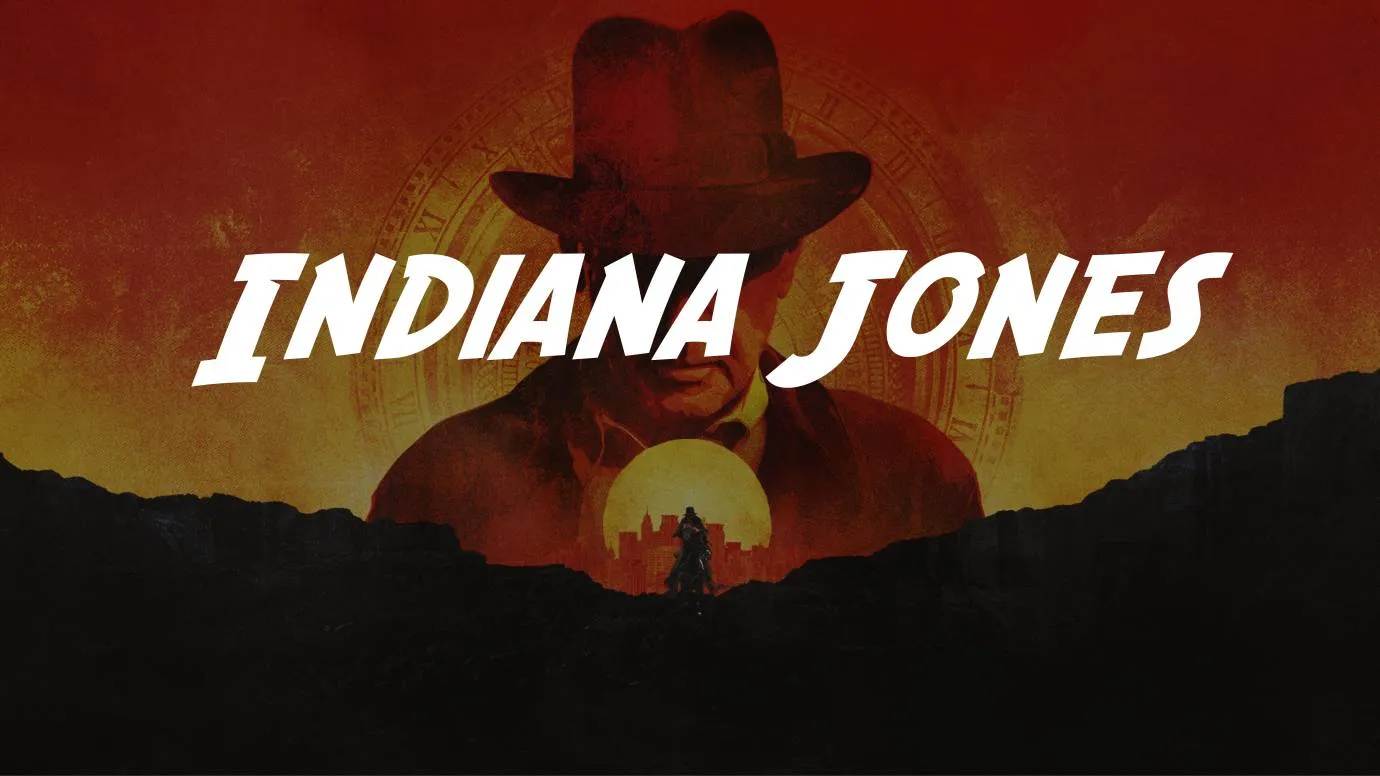
Font Introduction
Indiana Jones Font Family is a very popular typeface. Neale and Shayna Davidson the famous US designers worked for the creation of this font family. After its design completion, the designers released this typeface through Pixel Sagas.
Basically, this is a logo font designed to be used for the title of the Indiana Jones movie. This comic font is categorized in the category of fancy family of fonts. Due to its comic look, it is suitable for pairing with Meowza Playfull and Fancy Font. The text generator tool of this typeface is perfect for different colorful graphic designs.
What is the kind of Indiana Jones typeface?
This is a comic fancy font that was inspired by an Adventure movie and is available in two outstanding styles.
Where we can use the Indiana Jones typeface?
You can also utilize this texture for e-book cover designs, emblems, flyers, and animated book cover designs